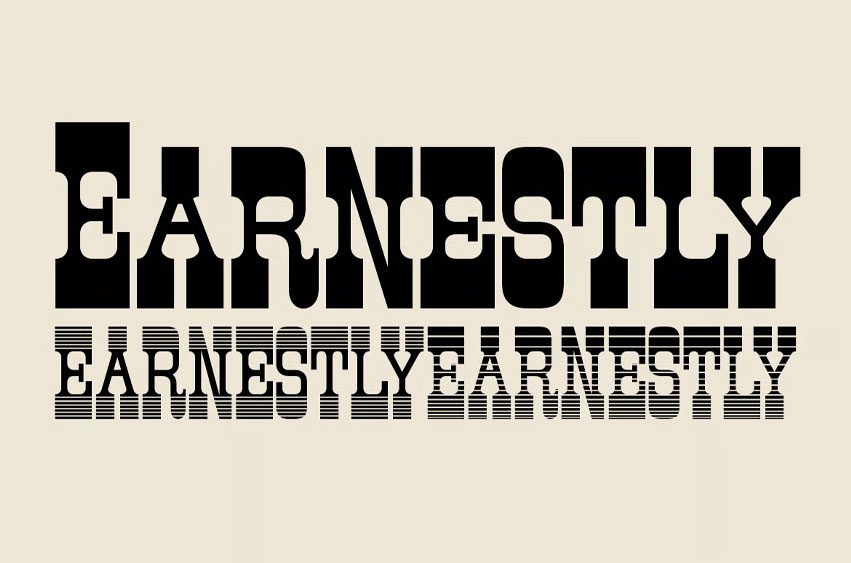
Earnestly Font
Earnestly Font is a bold Western-inspired display typeface that captures the essence of the Old West—rugged, dramatic, and unmistakably iconic. Designed with thick letterforms, strong contours, and vintage ornamental influences, this font brings an authentic frontier atmosphere to any project.
The family includes 3 distinctive styles that work seamlessly together: a solid version with powerful presence, a striped variant with dynamic character, and an ornamental cut that adds a refined historic charm. These styles provide flexibility for branding, posters, headings, and any design that needs a striking Western personality.
• 3 Font Styles: Regular / Striped / Ornamental
• Bold, expressive letterforms with true Old West character
• All-caps design for maximum impact
Style & Mood:
Earnestly was crafted to evoke a sense of strength, rustic charm, vintage flair, and classic Western drama. Ideal for recreating the atmosphere of rodeo arenas, frontier towns, saloon signage, and traditional wanted posters.